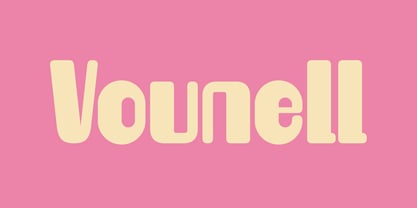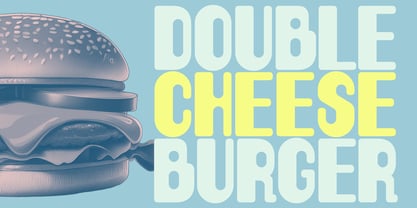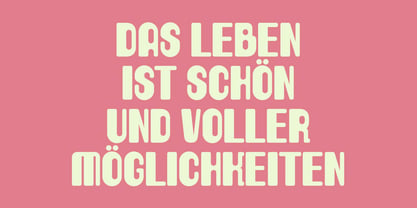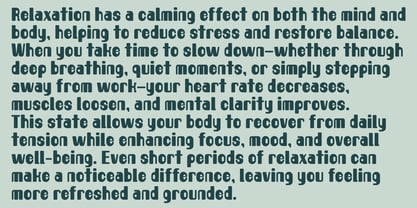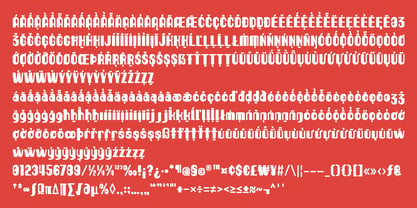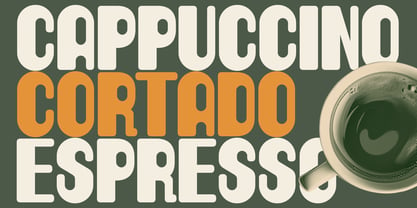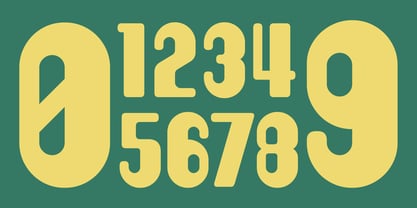
Vounell
by Outerend
The Vounell Font Family was designed by Taka Ikari and published by Outerend. Vounell contains 1 styles. More about this family
Vounell is a playful, rounded display font with a soft, friendly feel that brings warmth and charm to any design. Its smooth curves and approachable personality make it ideal for cafe menus, restaurant branding, logos, and lighthearted, whimsical visuals. Whether used in print or digital, Vounell adds a sense of joy, character, and memorability, making designs feel inviting, expressive, and full of personality.
Designers: Taka Ikari
Foundry: Outerend